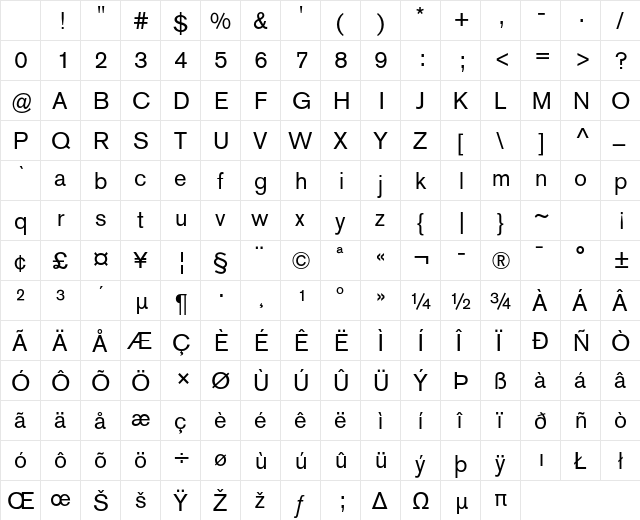
Complete Akzidenz-Grotesk Std Regular glyph index. Displaying only characters natively supported by Akzidenz-Grotesk Std Regular font.
Akzidenz-Grotesk Std takes a clean, functional approach - its unadorned letterforms prioritise legibility and work reliably across screen and print environments.
Font Pairing: Works well alongside a characterful serif or display font that can carry the expressive load while Akzidenz-Grotesk Std handles the functional copy.
Pro Tip: Use Akzidenz-Grotesk Std for UI labels, navigation, and short-form body copy where clean legibility is the priority.